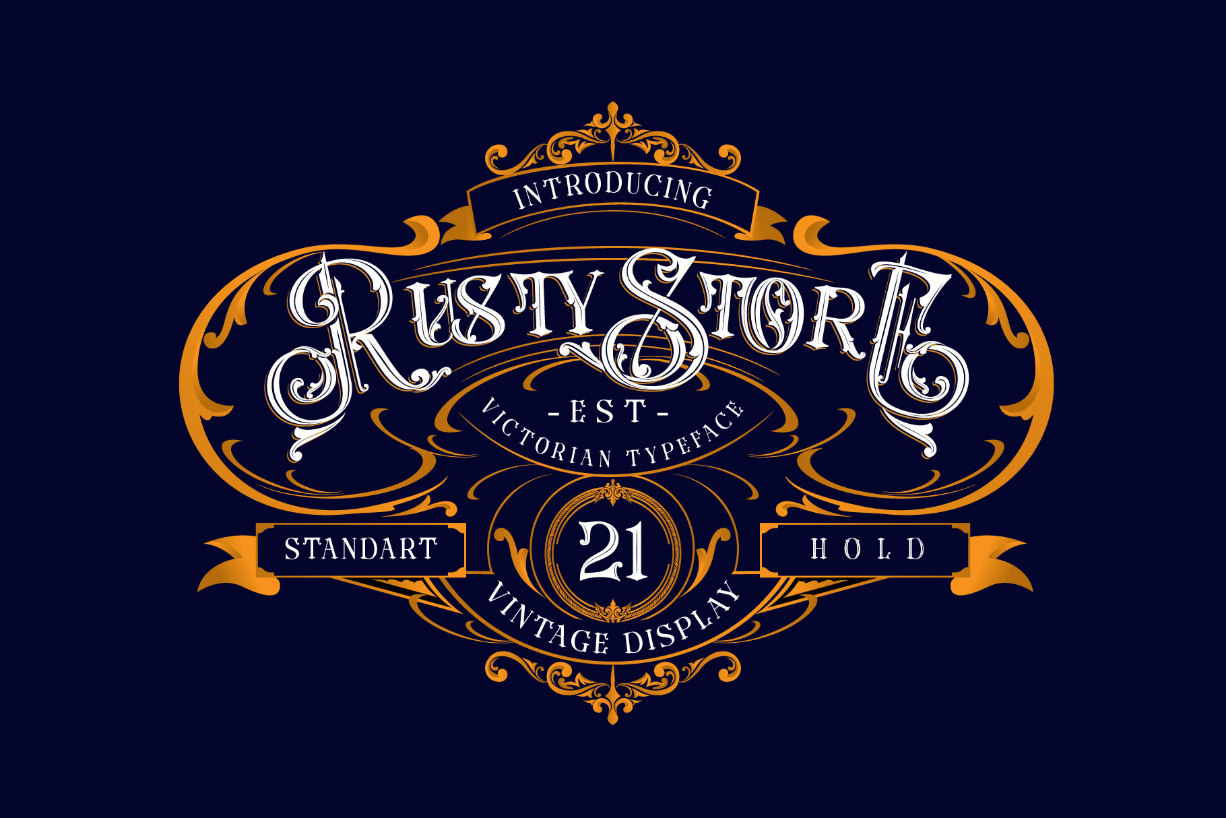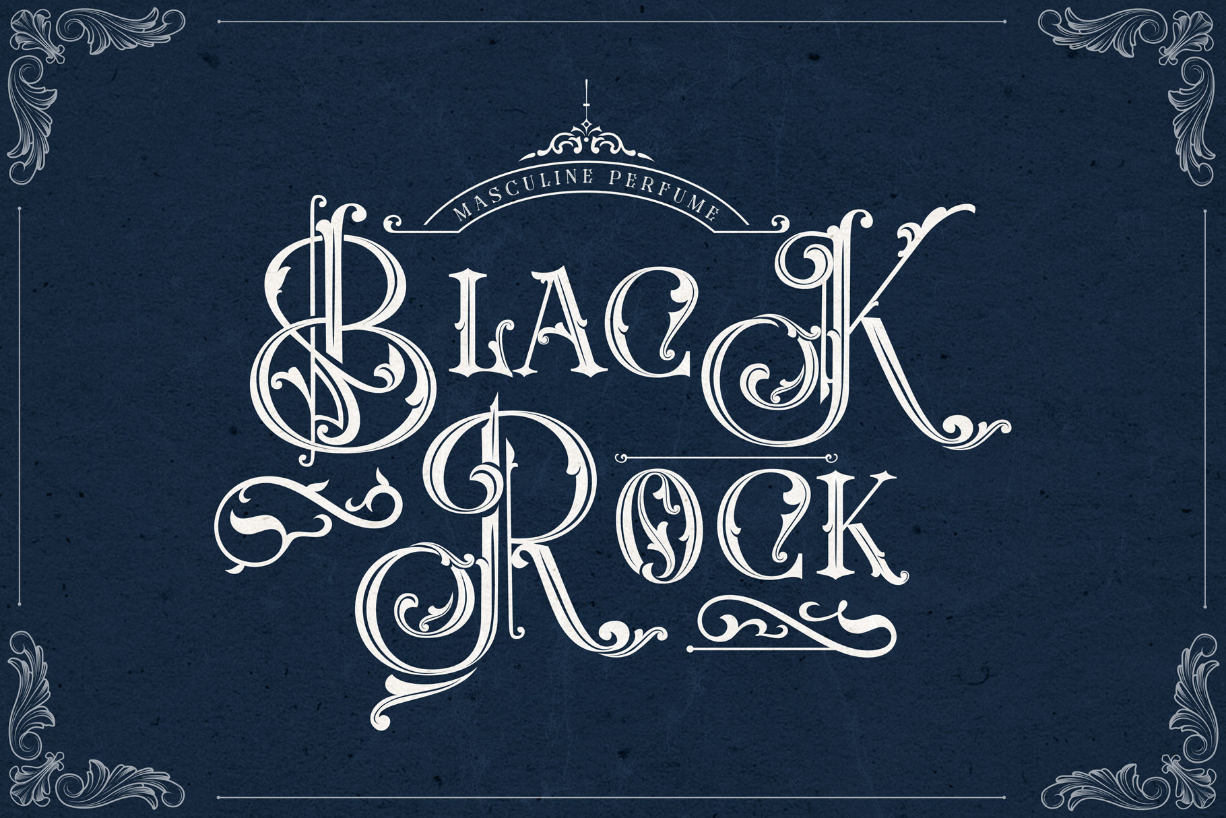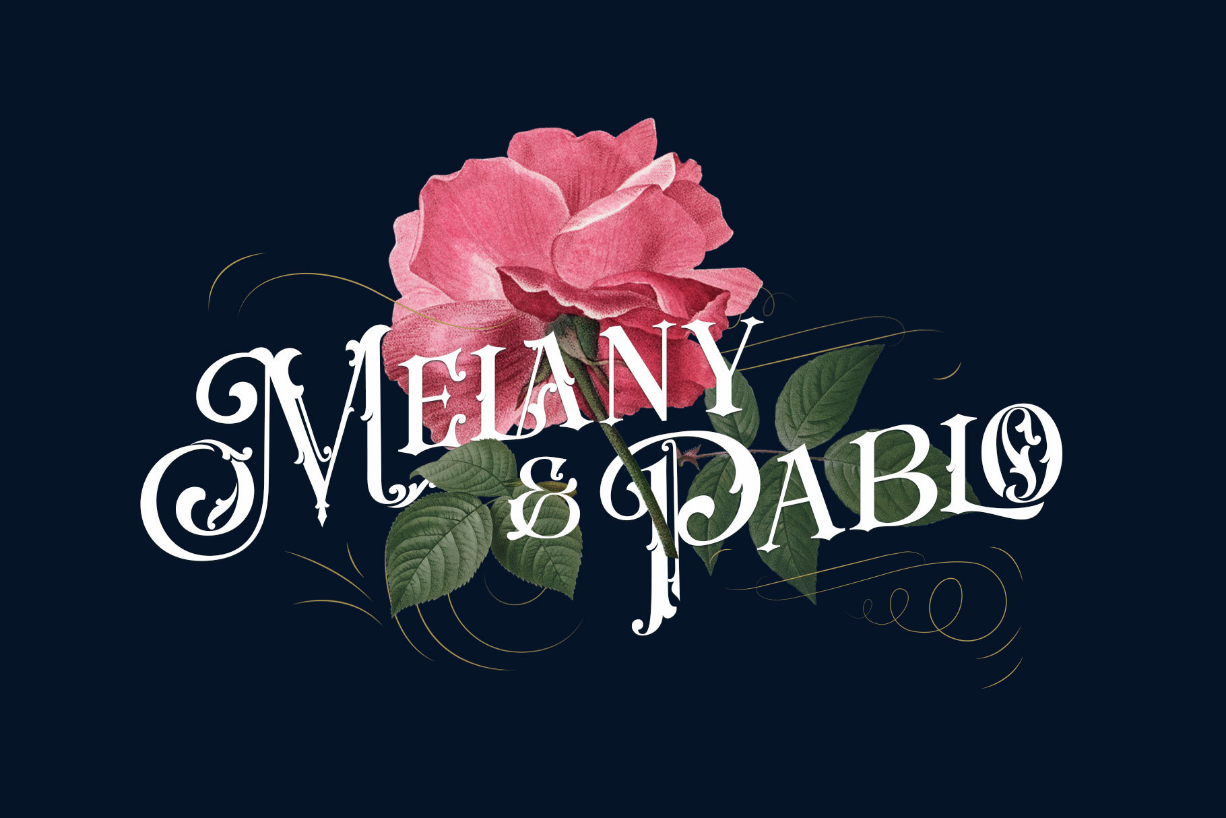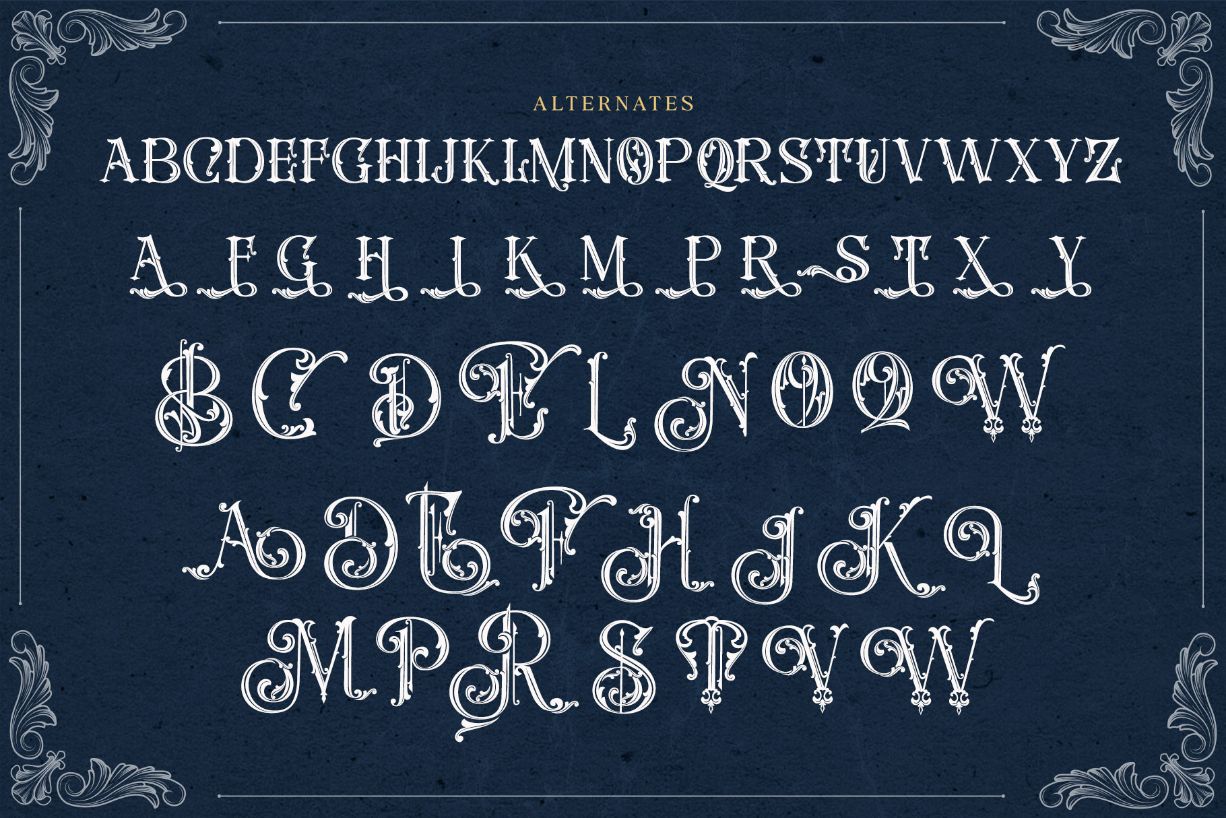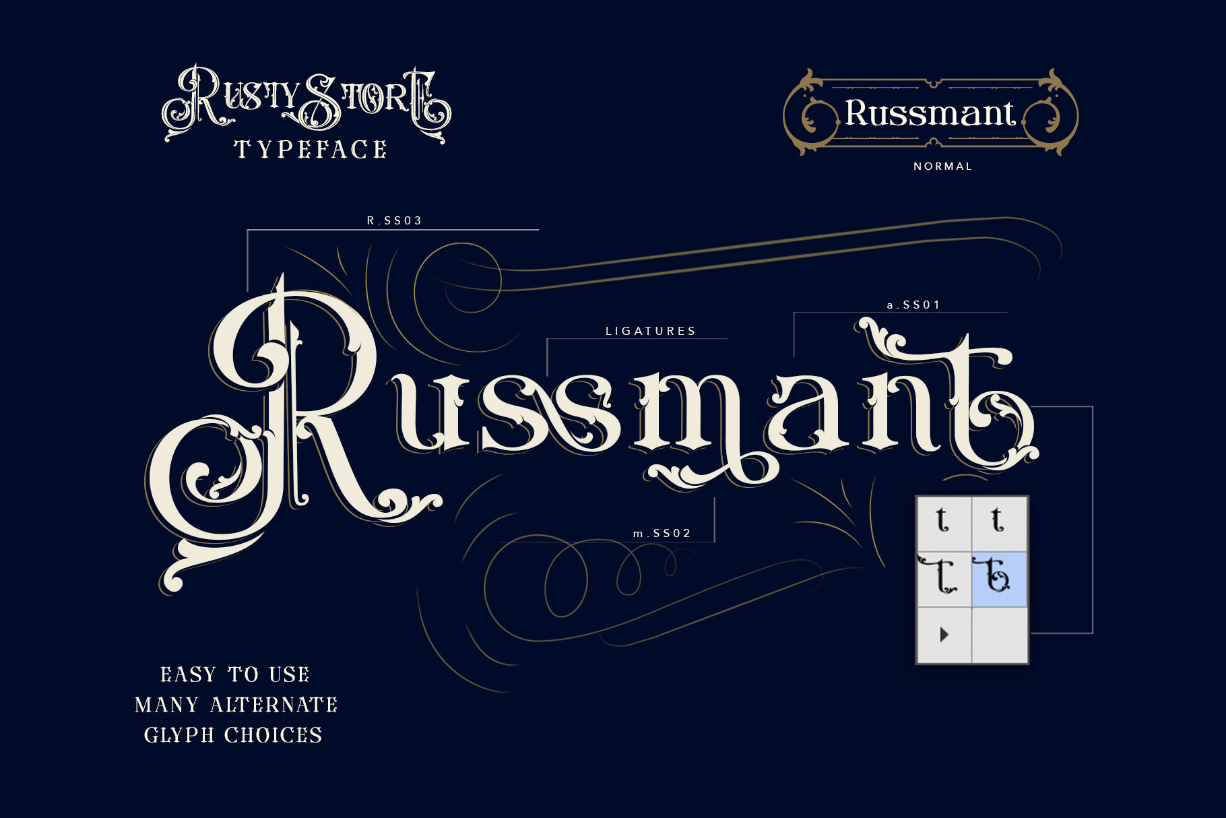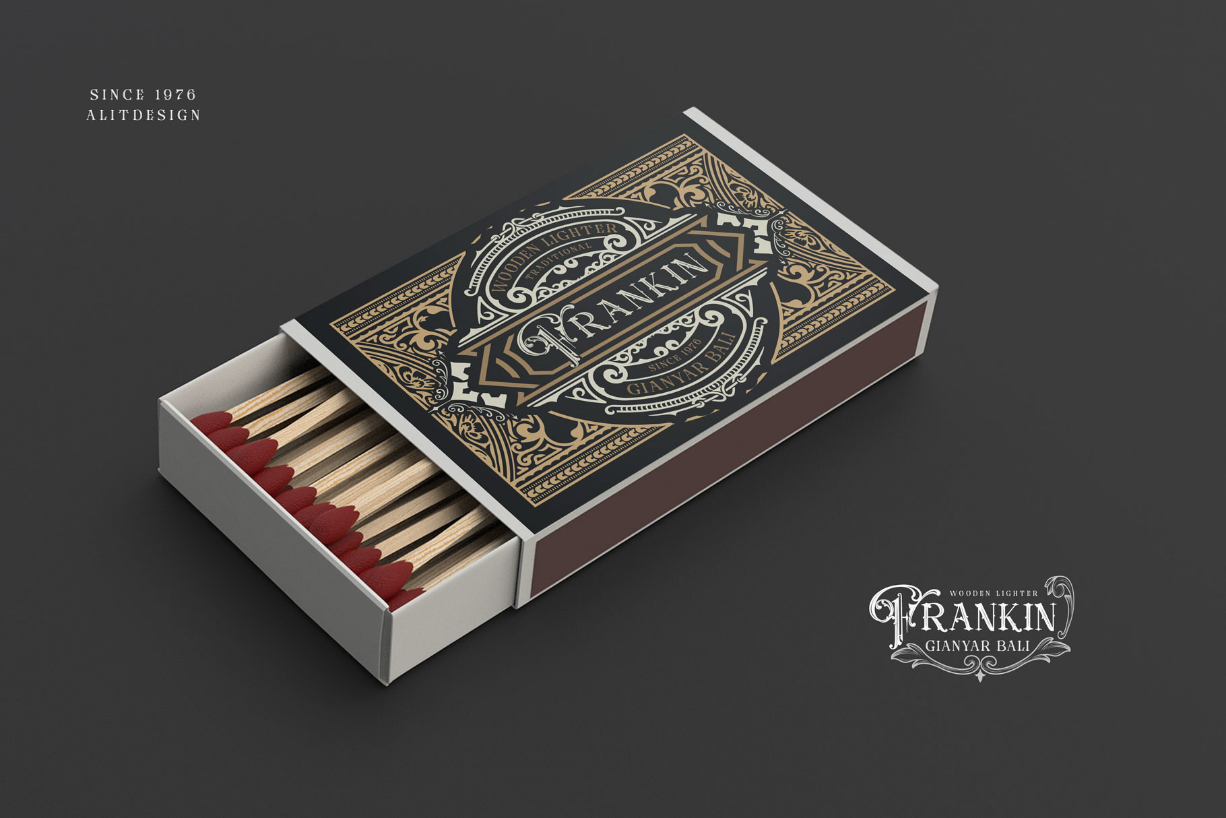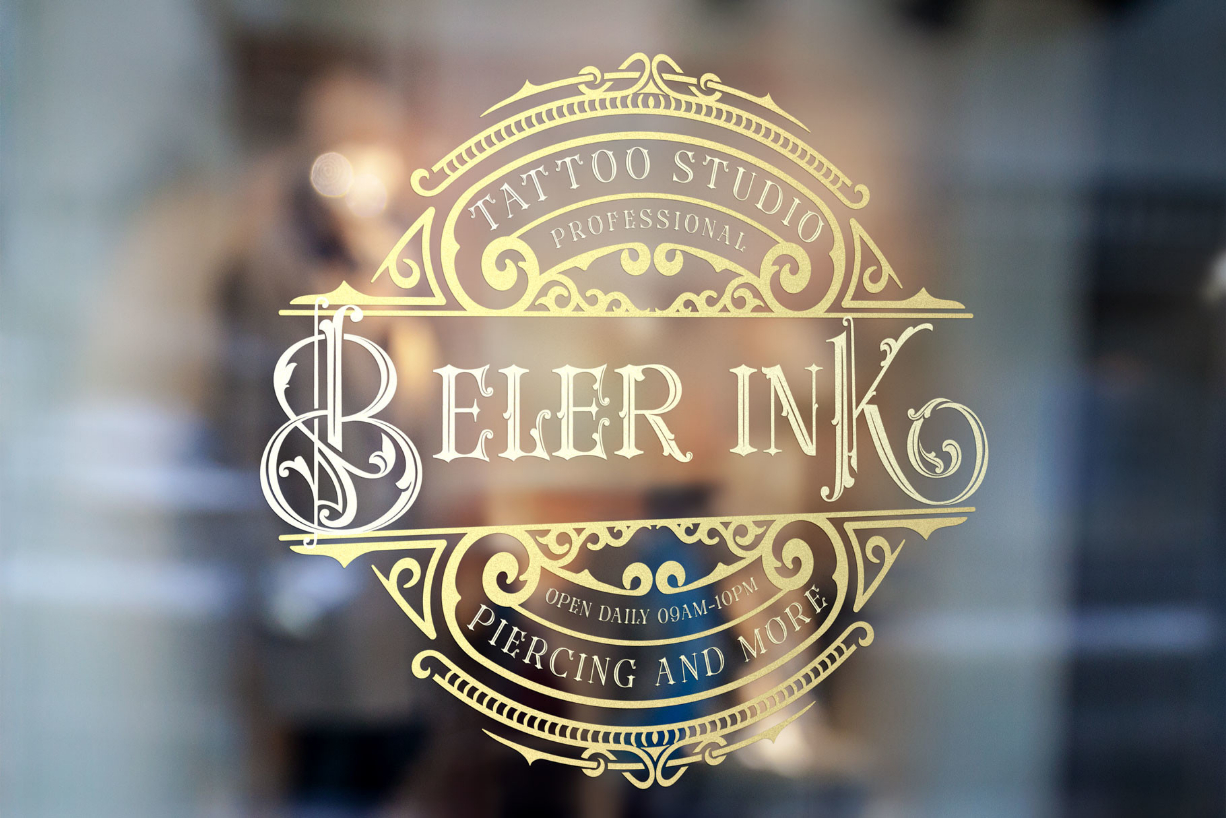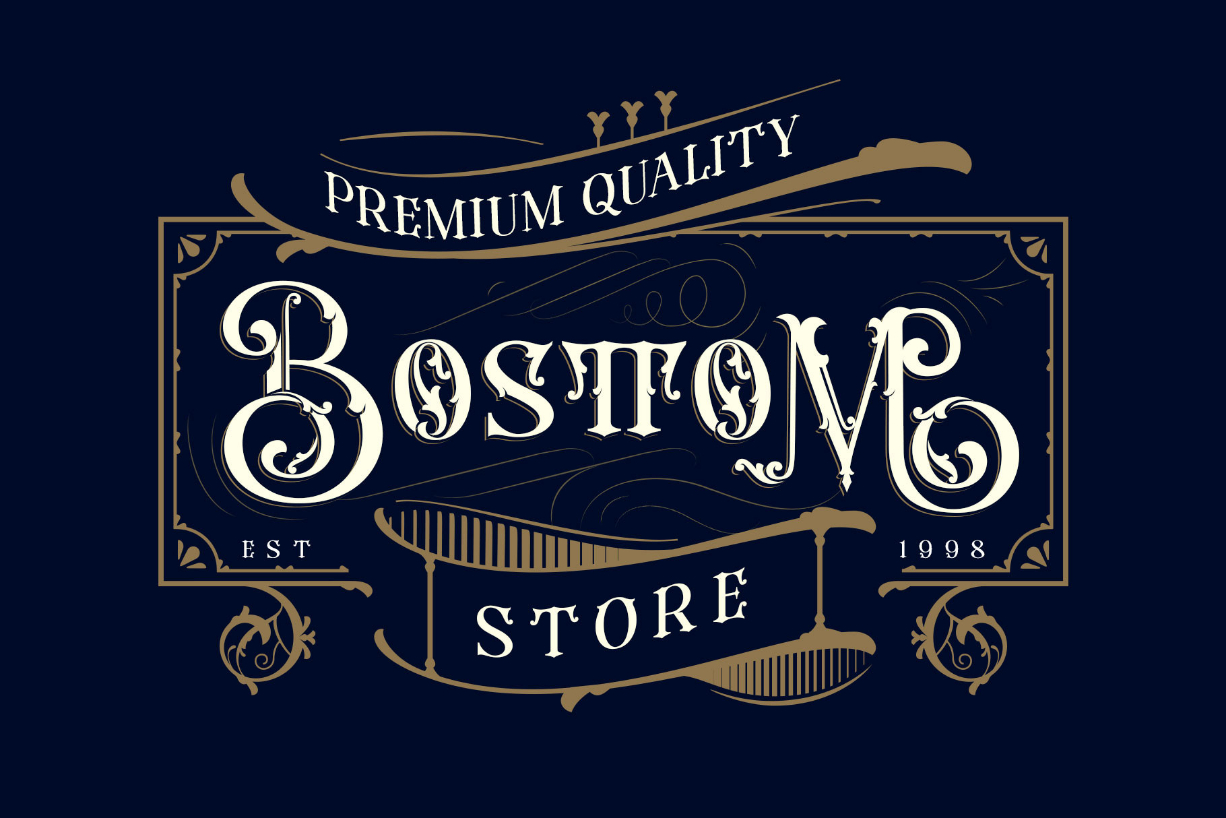
Rusty Store Font
About Rusty Store Font
Rusty Store is a distinct, bold and uniquely designed blackletter font. This font is neatly crafted and highly detailed. It is also PUA encoded which means you can access all glyphs and swashes with ease!